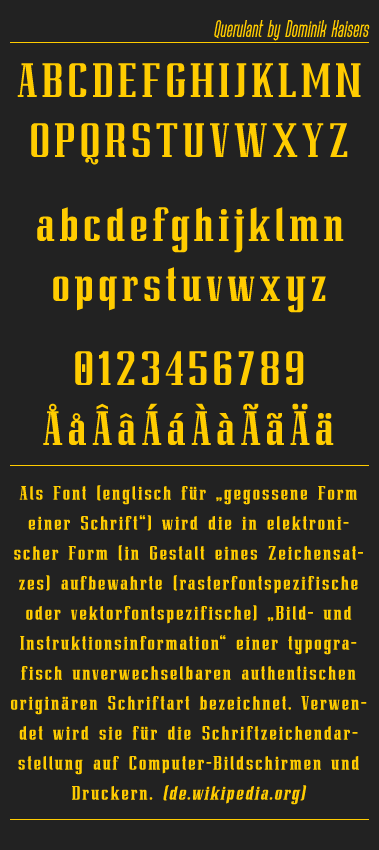
brillant!
Beautiful! Very nice detail in your letters and perfectly usable anywhere :)
Love that Q! :-)
I agree with all of the above. And let me just point out that Q again. The lower case eth should probably be rounder and the thorn should look more like the combination of b and p in my opinion. But I'm not Icelandic and haven't had much experience with that language, so what do I know. It sure deserves a 10/10 and a fave.
Great work! Very compact and contemporary. And good extended Latin as well.
I say top pick!
Thanks guys! The Q is one of my favourite letters, too, together with the a and the f.
@CMunk: You're right, I confused the eth with the "d with stroke". I'll try to change it into a more icelandic form.
EDIT: Adjustments to the small eth and thorn made. Again thanks to CMunk for the tip.
Beautiful work.
Yet another skillful work from your workshop. Kudos for the consistent design and the extended character set. I have the feeling there is something missing from the picture: the serifs at the end of the ascenders (b,d,h,k,l), and descenders (p,q). But that's the whole point to knock the reader off balance and grab his/her full attention by these peculiar omissions. Perhaps it wasn't so calculated, but instinctive, the result is the same: a new semi-Egyptian. 10/10
@Frodo7: Actually, at one point in the deveopment process of the font the letters you mentioned had serifs at the a-/descenders, but that is just the way this font worked for me. I tried many different things and had a few variations of most letters i could choose from and combine again till I thought it looked good and consistent and that's hopefully what you can see above.
Abelutely magnifique !!!
the tail of the Q is realy charming
Diatrics are well crafted
the whole font is awsome
Congratulations! FontStruct Staff have deemed your FontStruction worthy of special mention. “Querulant” is now a Top Pick.
as beauty as sun in the morning